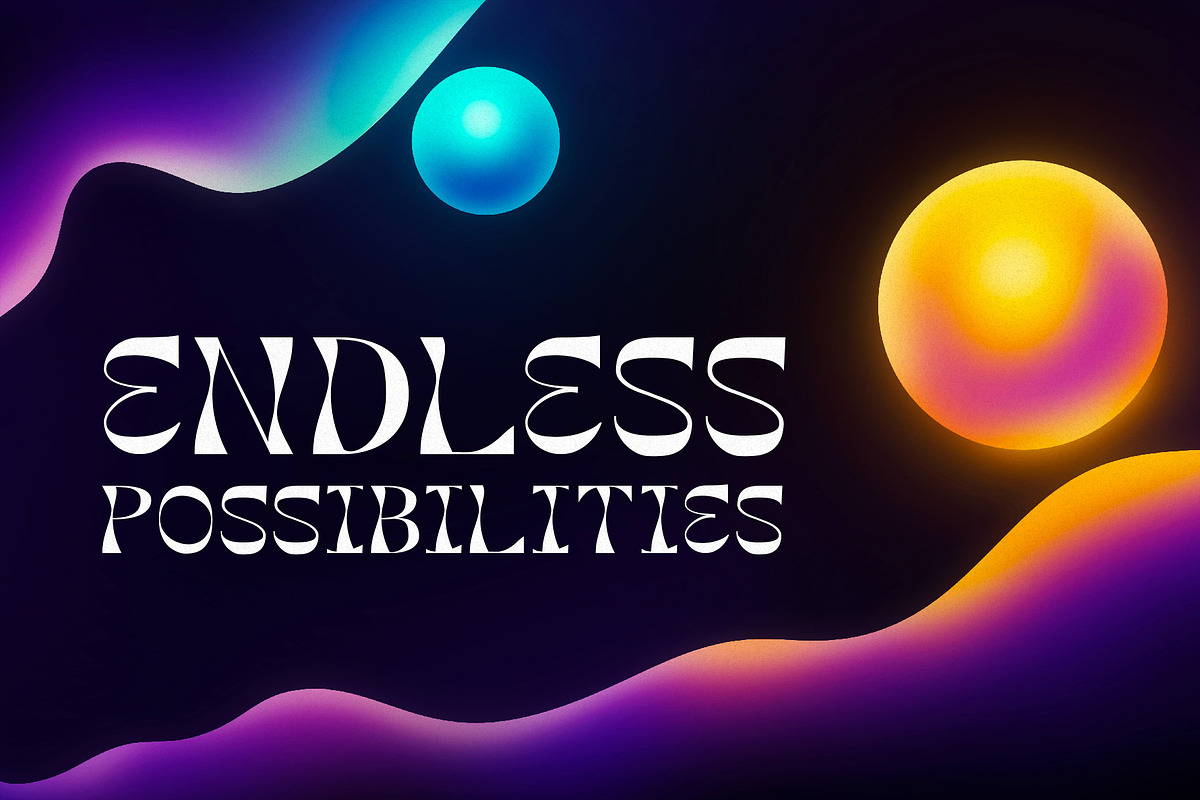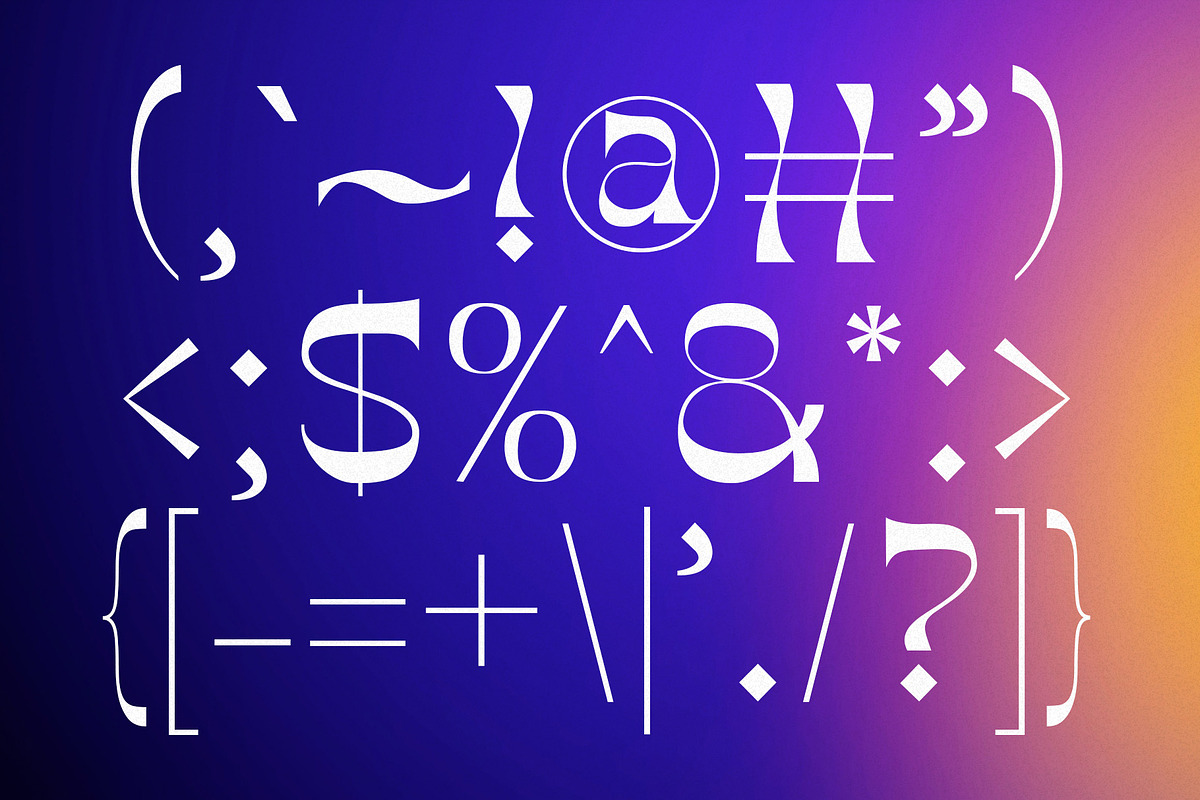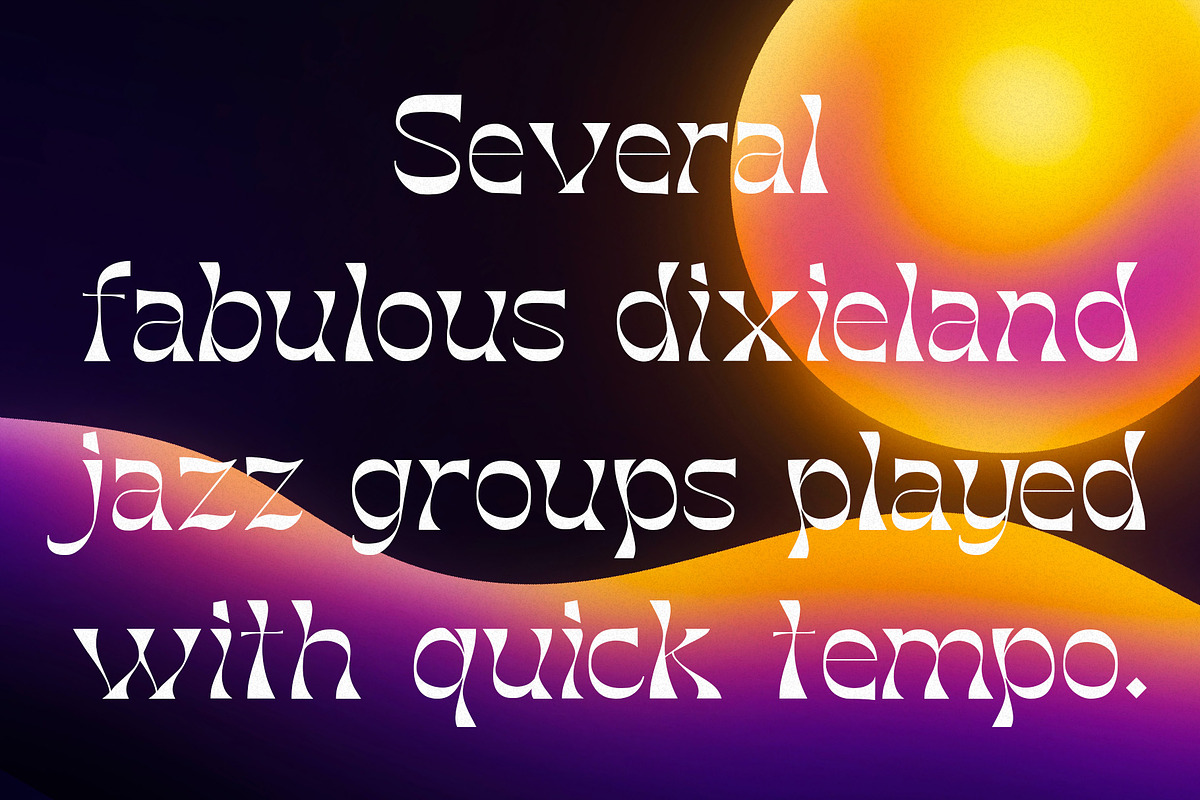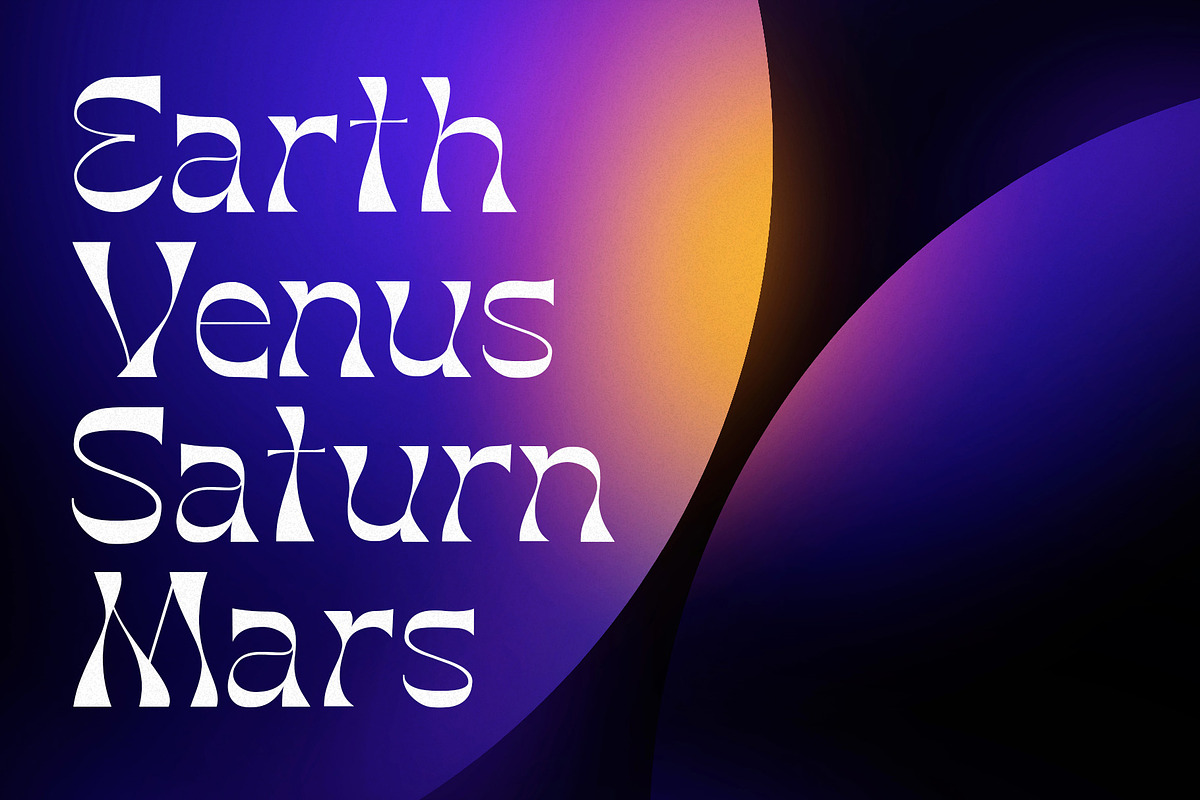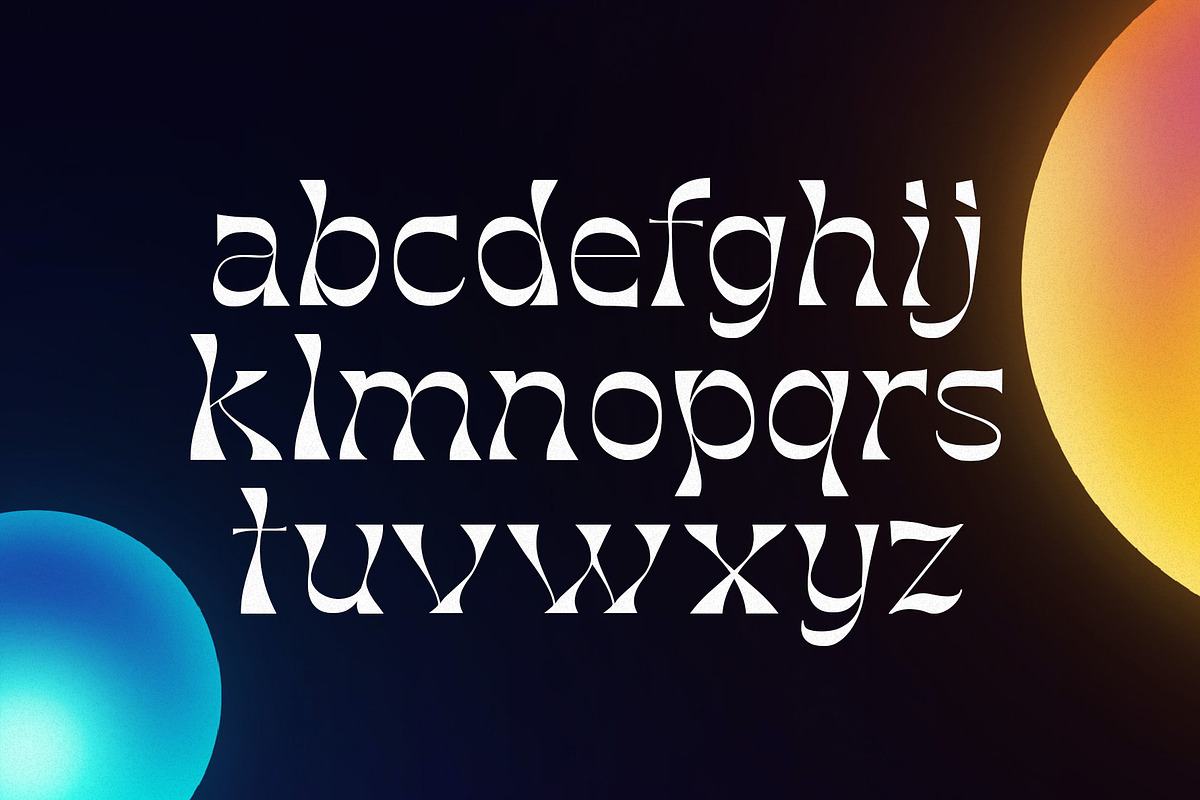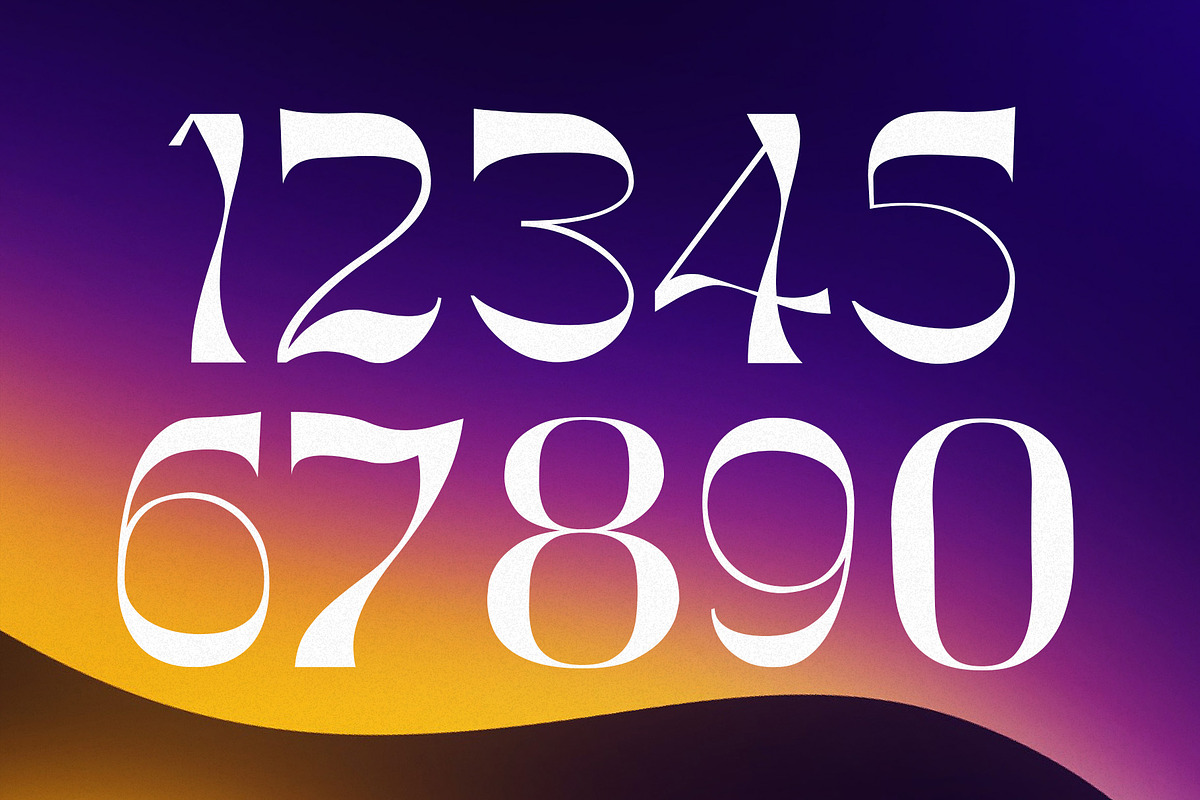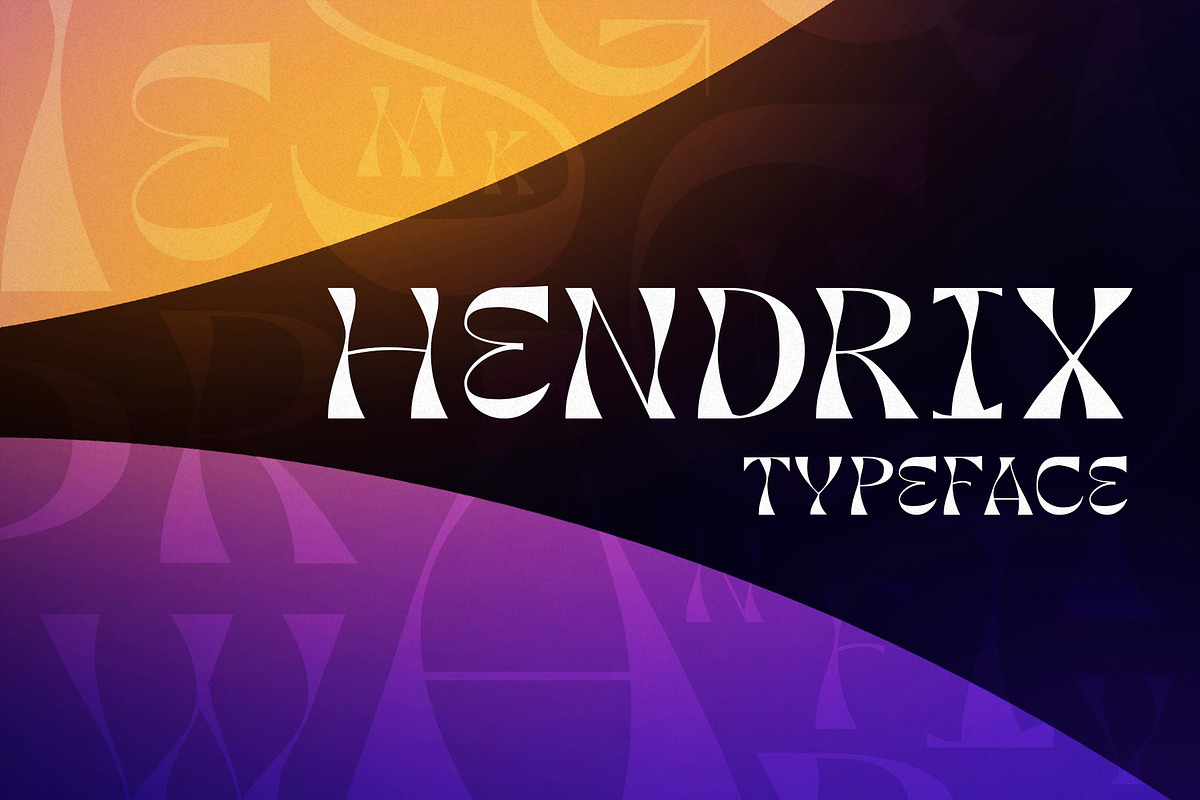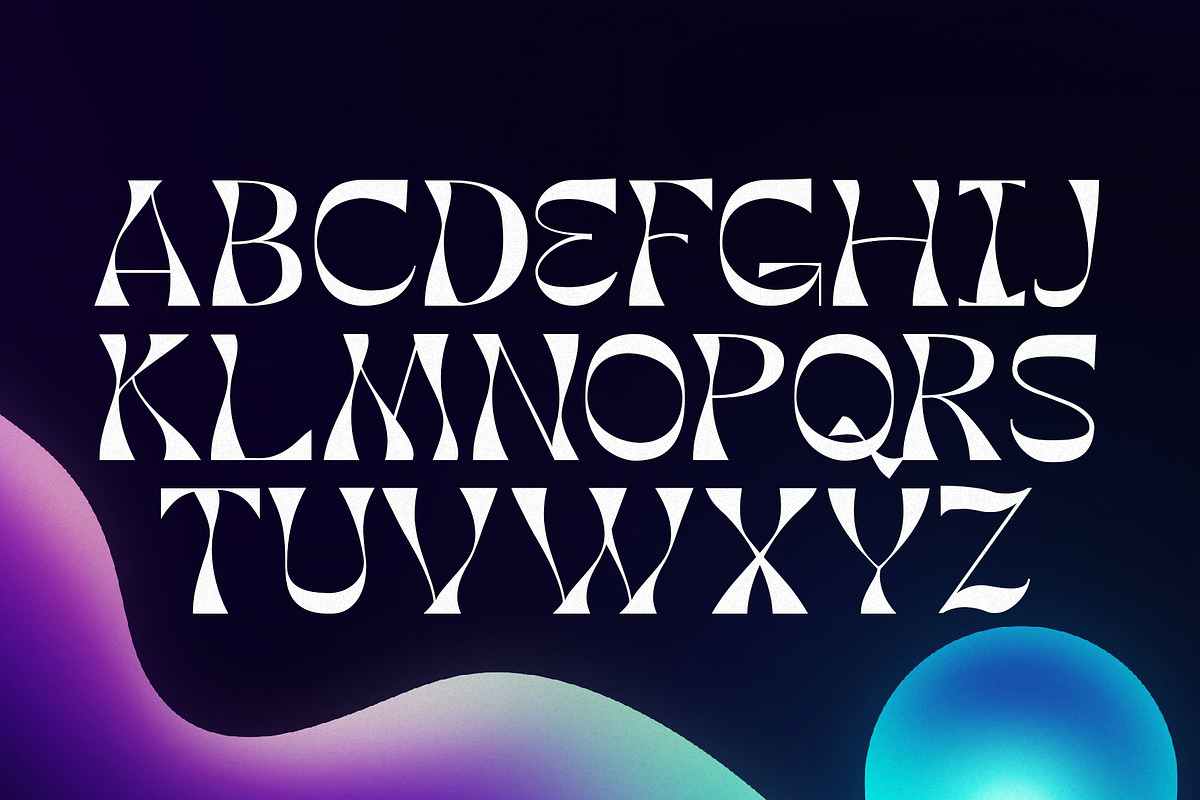
Hendrix - Art Nouveau Display
Step into a world where elegance meets eccentricity. Hendrix is a beautifully crafted typeface inspired by the flowing lines and organic charm of Art Nouveau, reimagined for the modern creative. With its graceful curves, stylish flourishes, and subtly quirky personality, Hendrix dances effortlessly between refined sophistication and bold individuality.
Whether you're designing dreamy wedding invitations, standout branding, enchanting book covers, or magical packaging, Hendrix adapts to your vision with seamless versatility. Its unique balance of artistry and readability makes it a powerful choice for logos, editorials, social media, and anything that deserves to feel both classic and fresh.
Unapologetically elegant. Effortlessly expressive. Hendrix isn’t just a font—it’s an aesthetic.